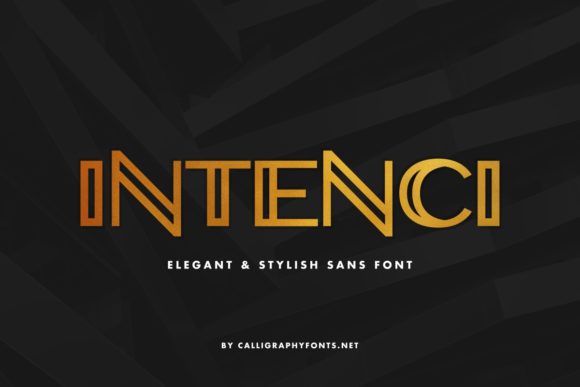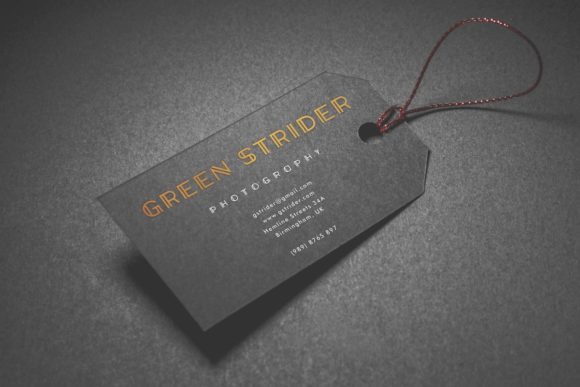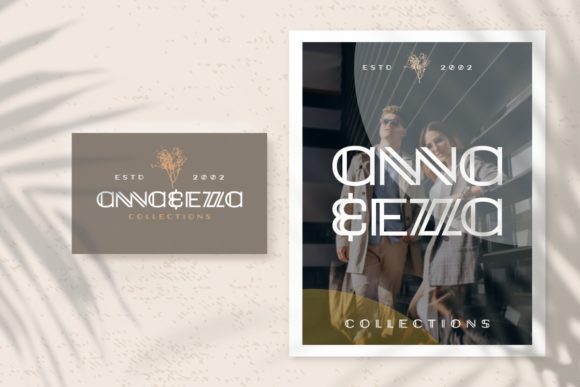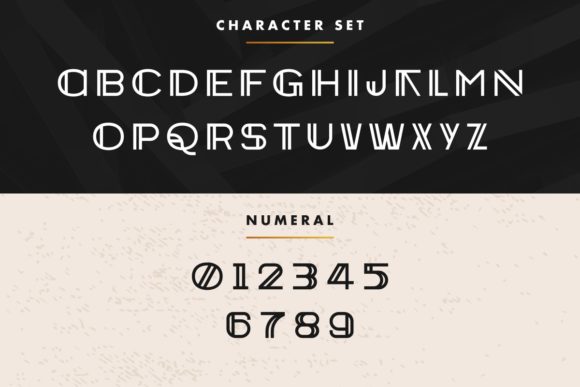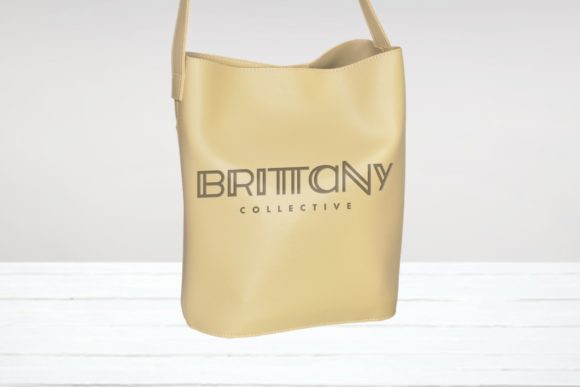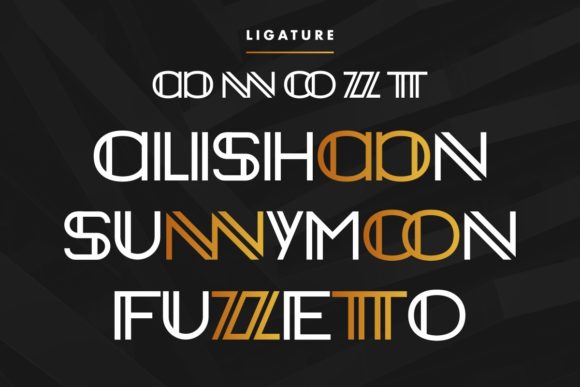
Introduction to Intenci Font
Have you ever been stuck on a design project, unable to find the perfect font to bring your vision to life? We’ve all been there. But what if you stumbled upon a font that not only elevates your design but also becomes a true favorite? For designers, finding the right font can be the difference between a good design and a great one.
Enter the Intenci Font, a unique and elegant display font designed to take your creative ideas to new heights. With its high quality and versatility, this font is a valuable resource for any design project. Whether you’re working on a logo, brochure, or website, the Intenci Font is sure to impress with its transparent background and sleek design.
Key Features of Intenci Font
- Transparent background, allowing for seamless integration with any design or background.
- Available in multiple sizes, including small caps, and various resolutions, making it suitable for a range of applications.
- Intenci Font is a high-resolution font, ensuring crisp and clear text even at large sizes.
- Designed to be versatile and adaptable, making it a valuable addition to any design resource library.
- Perfect for use in creative projects, such as logos, branding, and advertising, where a unique and eye-catching font is essential.
Honest Review: Intenci Font
I recently came across the Intenci Font, and I must say it’s a great addition to any design resource. The high-quality design makes it perfect for creative projects that require a unique touch. The font is available for free download, which is always a plus.
- What works well: ✨ The Intenci Font has a beautiful, modern design that’s perfect for headers and titles. The transparent background allows for seamless integration into any design project.
- What works well: ✨ The font is highly customizable, making it easy to adjust to fit your specific design needs.
- ⚠️ Limited font weight options: While the font is highly customizable, it’s limited to a few font weights, which may not be ideal for designs that require a lot of variation.
- ⚠️ Not suitable for body text: The font is best used for headers and titles, as the design may not be as readable for larger blocks of body text.
Overall, the Intenci Font is a great addition to any design resource. While it may have some limitations, the high-quality design and transparent background make it perfect for creative projects that require a unique touch.
How to Use Intenci Font
Using Intenci Font in Design Applications
Intenci Font can be used in a variety of design applications, including:
– Use the font in your Canva projects for a professional and modern look.
– Take advantage of the font’s high quality in your Adobe creative projects.
– Add a touch of elegance to your presentations and documents with the Intenci Font.
Tips for Getting the Most Out of Intenci Font
To get the most out of Intenci Font, consider the following tips:
- Use the font with a transparent background to achieve a seamless design.
- Experiment with different font sizes and styles to find the perfect combination for your project.
- Combine Intenci Font with other high-quality design resources for a cohesive and professional look.
Intenci Font is ideal for a variety of creative projects, including:
- Brand identity design